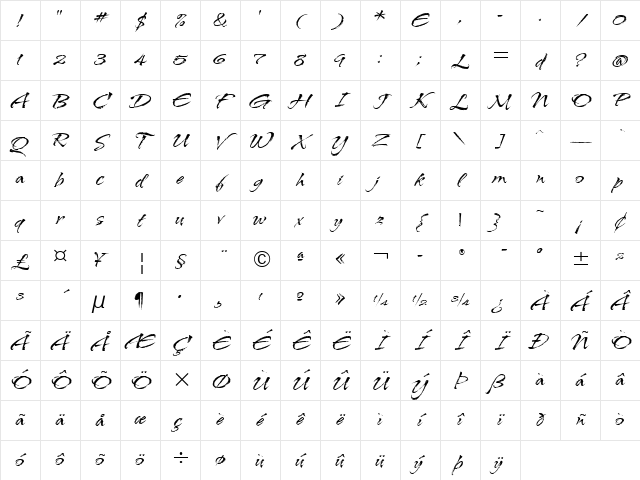
Arid ITC Light Free Font
Arid ITC Light
Foundry: International Typeface Corporation
Design Context for Arid ITC
Arid ITC is a composed and adaptable typeface that performs quietly and consistently across a wide range of design contexts. Its slender proportions lend an understated elegance to any composition.
Pro Tip: Use Arid ITC in both headline and body roles to test its range before committing to a single application.